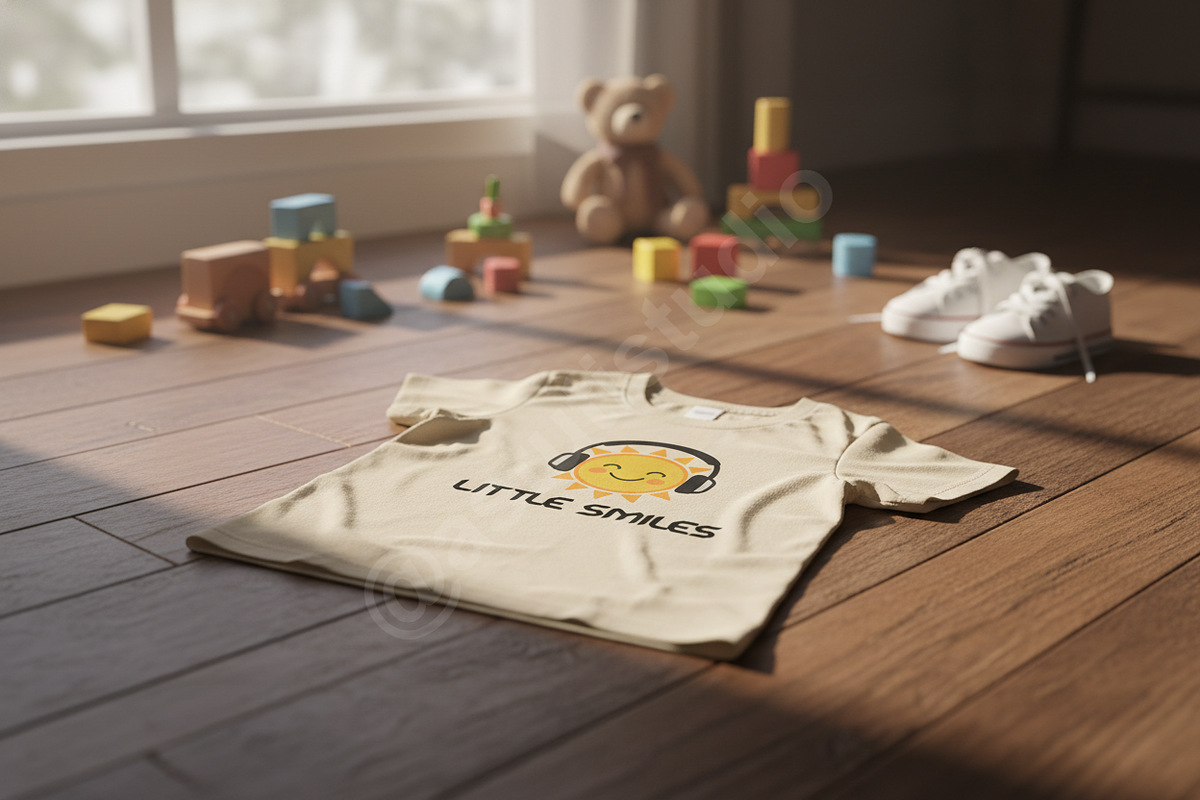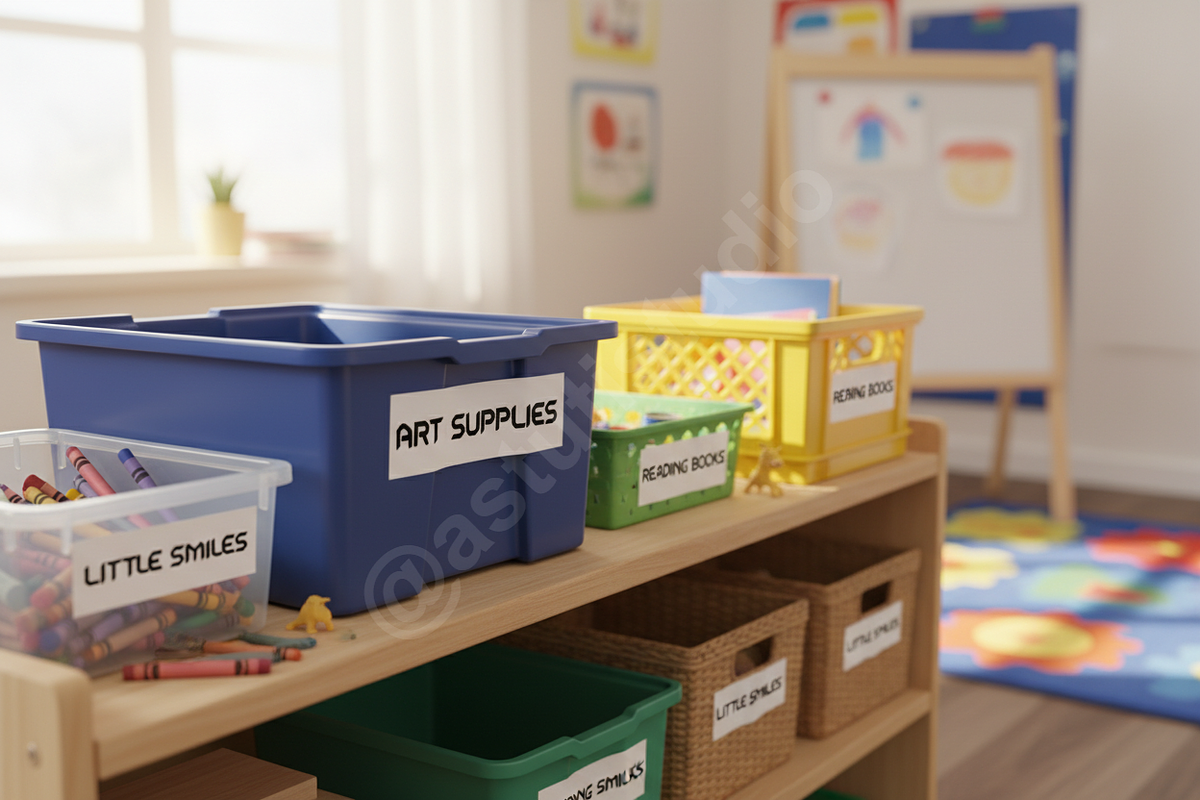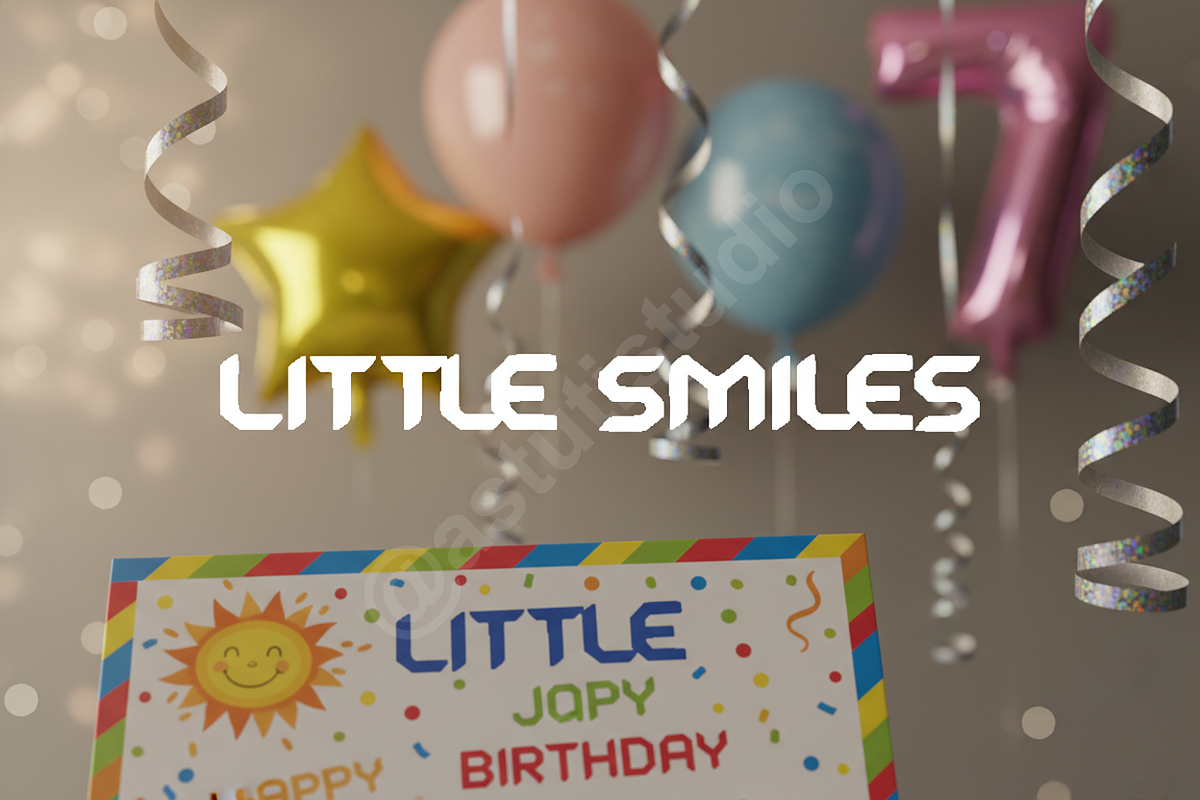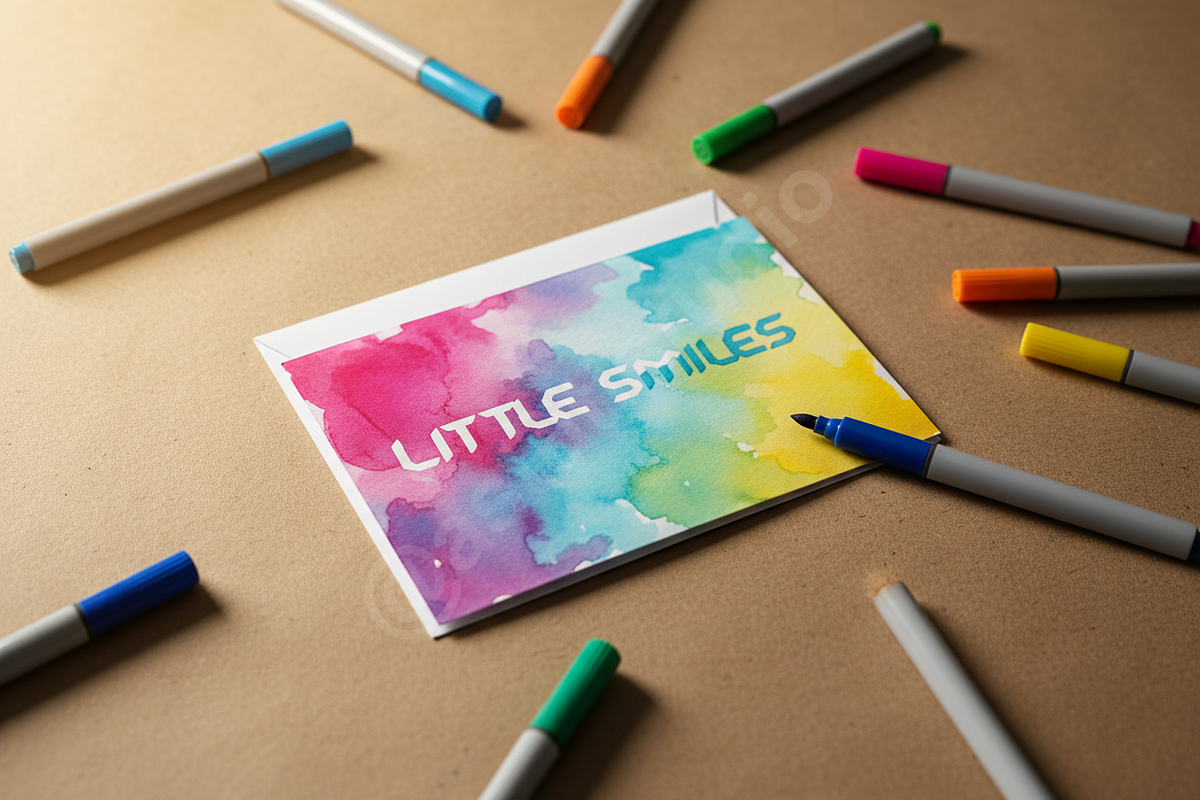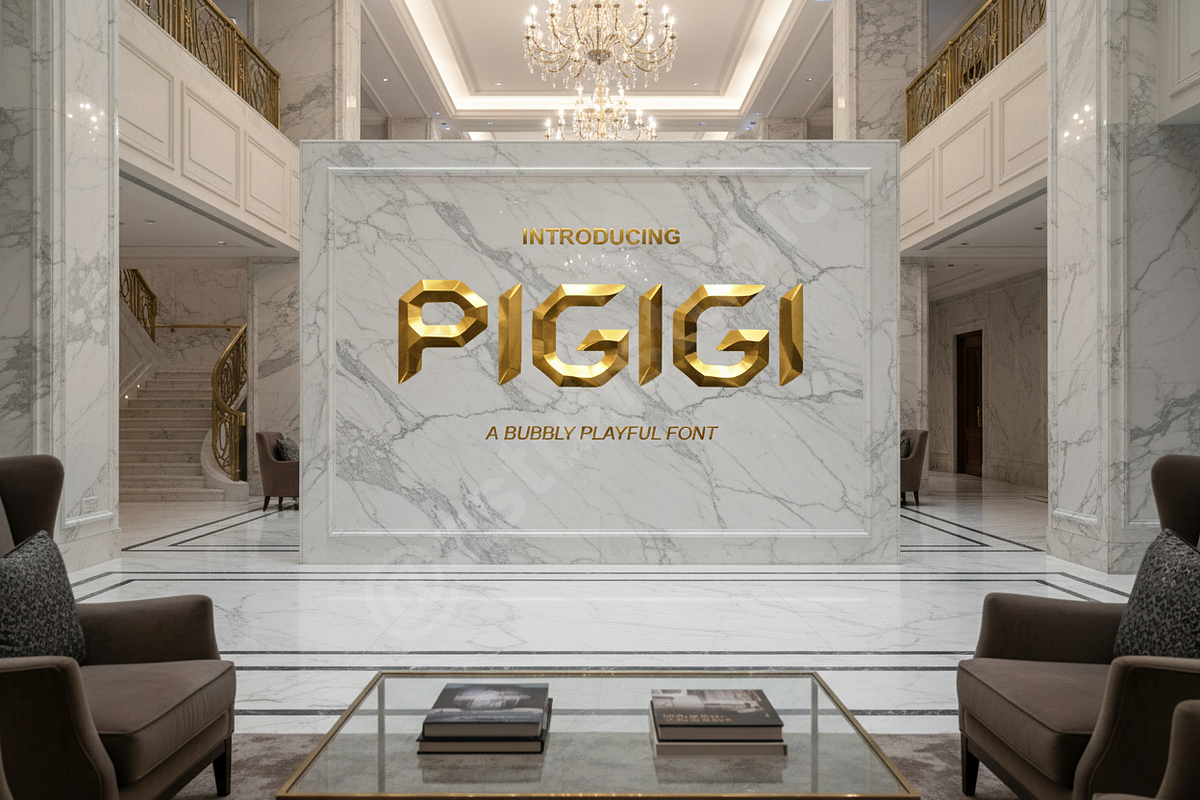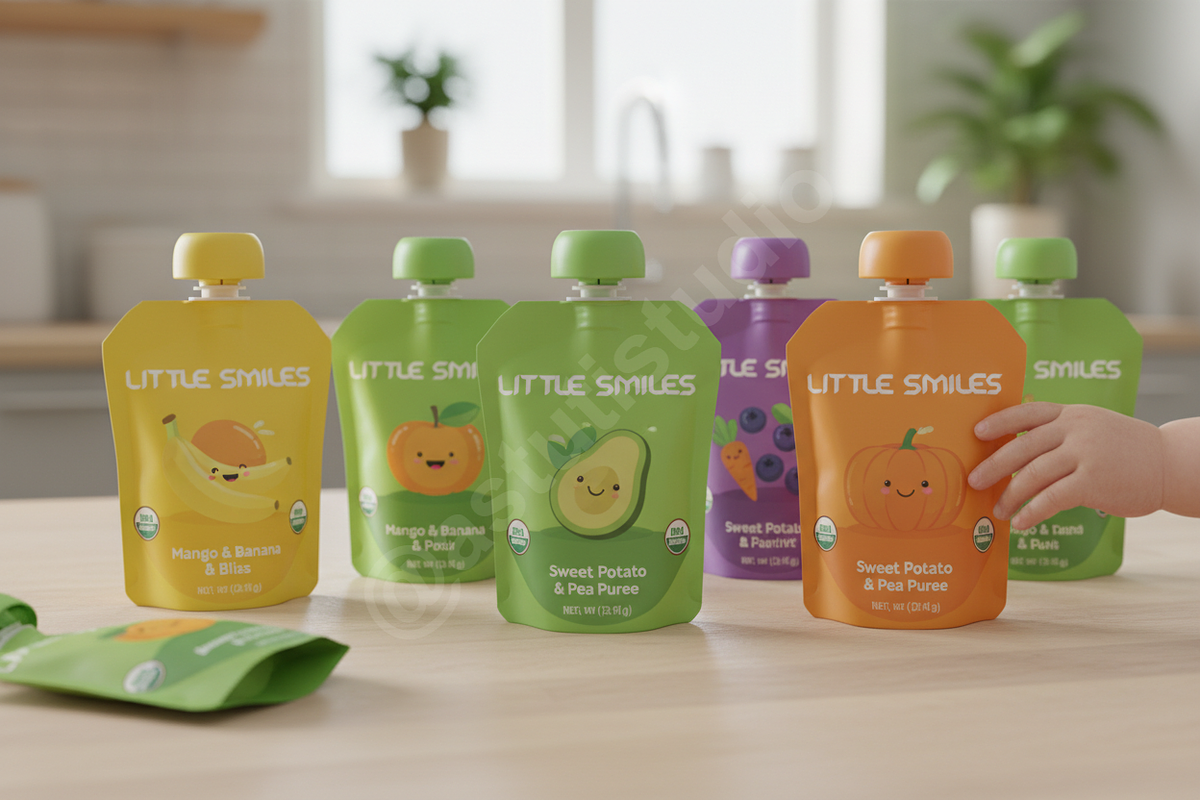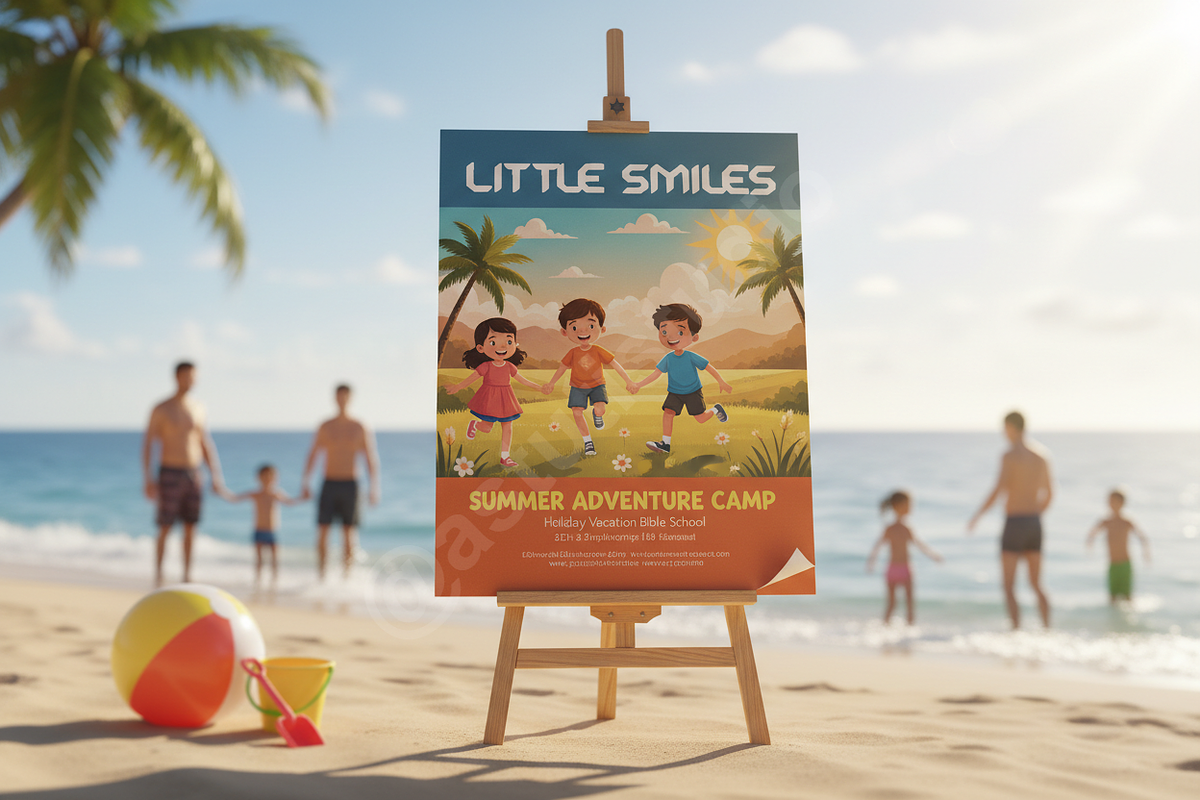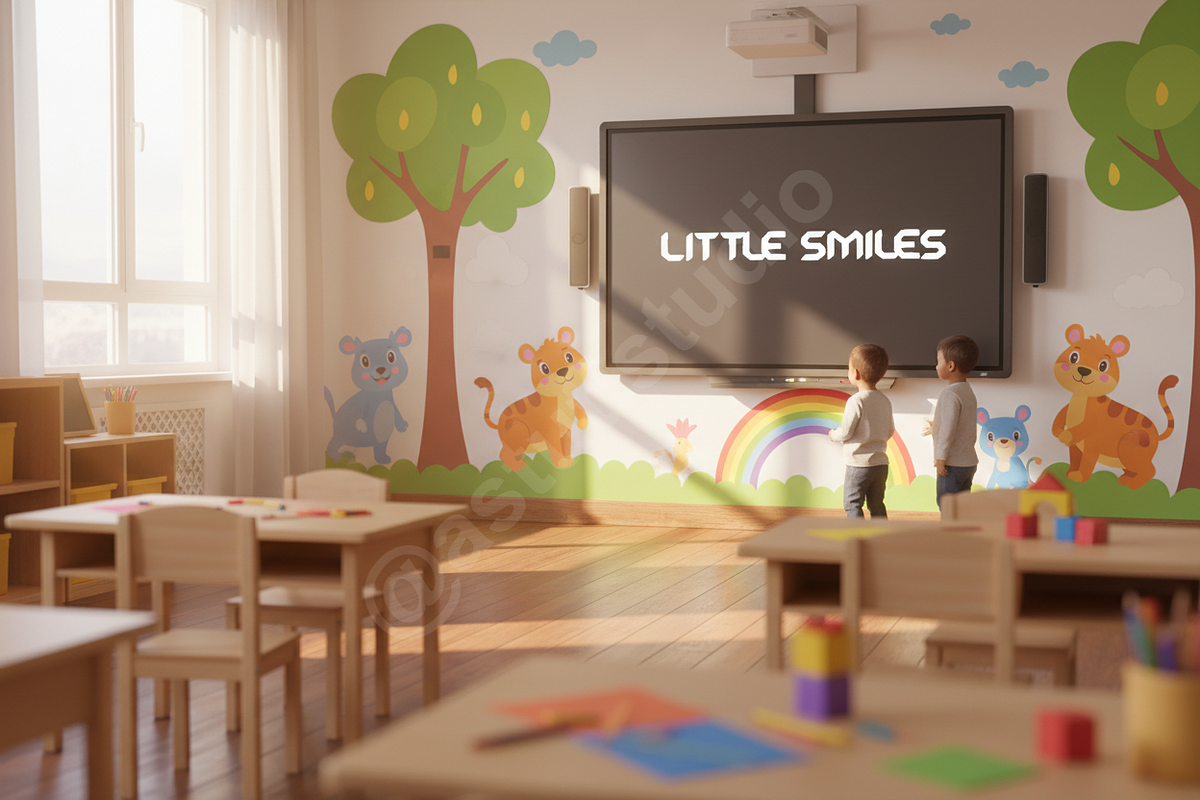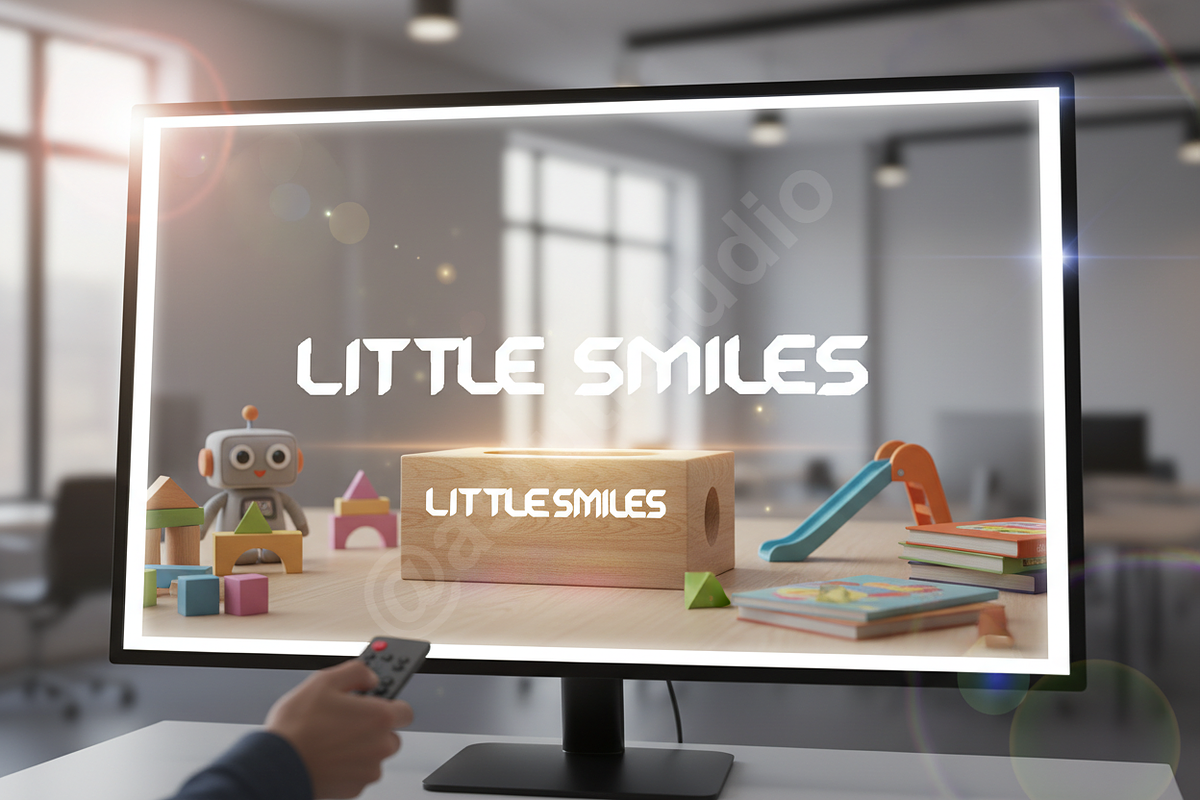
Pigigi - Elegant Modern Serif Typefa
Pigigi is a refined, high-contrast serif typeface meticulously crafted for brands that demand a sophisticated and high-end aesthetic. Drawing inspiration from contemporary editorial design and luxury fashion, Pigigi strikes a perfect balance between timeless elegance and modern minimalism. It is an ideal choice for luxury branding, upscale magazine layouts, and premium social media content.
- High-contrast letterforms for a professional and elegant feel
- Extensive set of unique ligatures for custom-looking typography
- Full multilingual character support for global brands
- Optimized kerning and spacing for effortless readability
- Clean, sharp edges designed for high-resolution displays